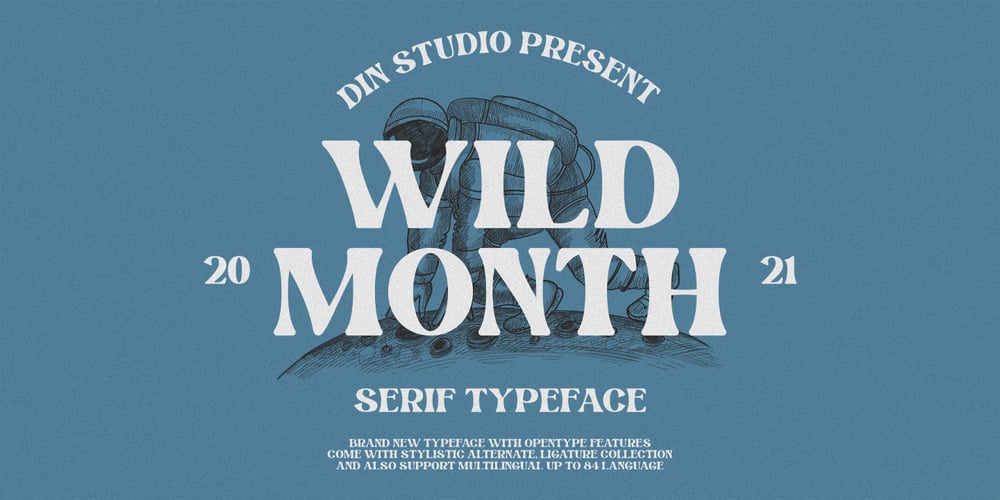
Wild Month
Wild Month font
Wild Month Font Family was designed by Donis Miftahudin and published by Din Studio. Wild Month contains 1 styles and family package options. Hi, Everyone! Want font to make your branding bold? Looking for a fabulous, stylish, modern, and adventure font? We’ve got what you want.Wild Month- A Serif FontWild Month is a a serif typeface that is made in uppercase and lowercase. An excellent choice to add the right amount of modernity. This typeface with artistic style looks very interesting for loads of different projects and promotions. A great all-in-one package for your logo, book cover, poster, t-shirt, branding, and advertisement needs.Our font always includes Multilingual Support to make your branding reach a global audience. Features: Ligatures Alternates Stylistic Set Swashes PUA Encoded Numerals and Punctuation Thank you for downloading premium fonts from Din Studio